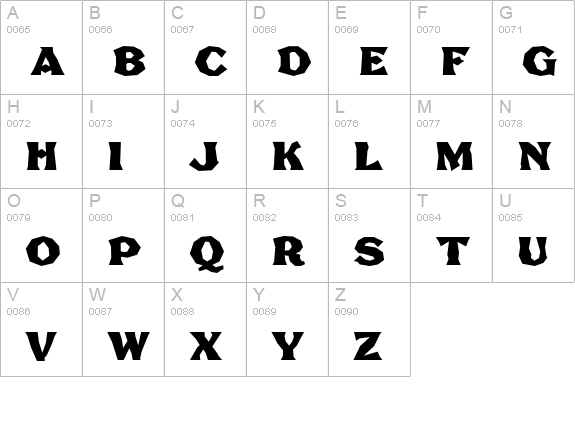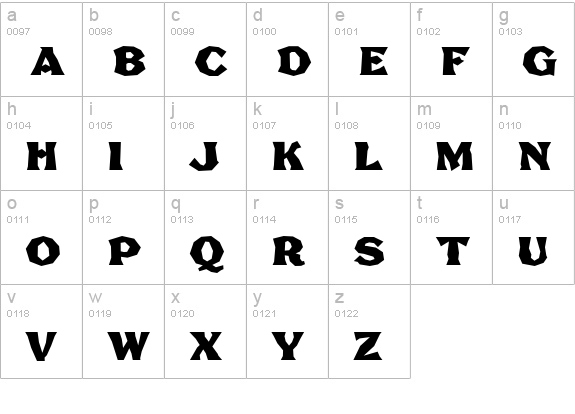
FHA Broken Gothic Poster NC Font Details
The FHA Broken Gothic Poster NC font is a stunning display typeface that exudes a sense of rugged elegance and vintage charm. With its broken lines and intricate details, this font captures the essence of Gothic artistry with a unique twist. Each character is meticulously crafted to create an edgy and distressed look, perfect for adding a touch of drama to any design project. What sets this font apart is not only its impeccable design but also its accessibility. The FHA Broken Gothic Poster NC font is available for free, making it an excellent choice for both personal and commercial use. Whether you're designing a poster, logo, or any other creative endeavor, this font will effortlessly elevate your designs to new heights. Downloading this font is a breeze, as it is freely available to download at FontsMarket.com. The website offers a wide range of fonts, and the FHA Broken Gothic Poster NC font is a gem in their collection. With just a few clicks, you can bring this captivating font into your creative arsenal and unleash your imagination. The versatility of the FHA Broken Gothic Poster NC font is truly remarkable. Its bold and eye-catching appearance makes it ideal for headlines, titles, and attention-grabbing elements. It effortlessly adds a touch of vintage elegance to any project, whether it's a movie poster, album cover, or website design. The attention to detail and craftsmanship in the FHA Broken Gothic Poster NC font is evident in every curve and line. The broken edges give it a unique and distinctive look, setting it apart from other Gothic fonts. It effortlessly captures the essence of Gothic art and brings it to life in a contemporary and captivating way. So, if you're looking for a font that combines Gothic aesthetics with a modern twist, the FHA Broken Gothic Poster NC font is the perfect choice. Its free availability at FontsMarket.com makes it even more appealing, ensuring that you can access this remarkable font without breaking the bank. Download it today and let your creativity soar to new heights.